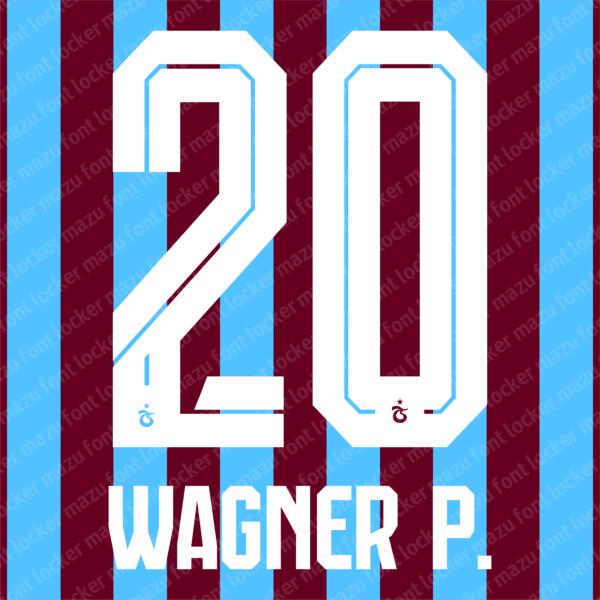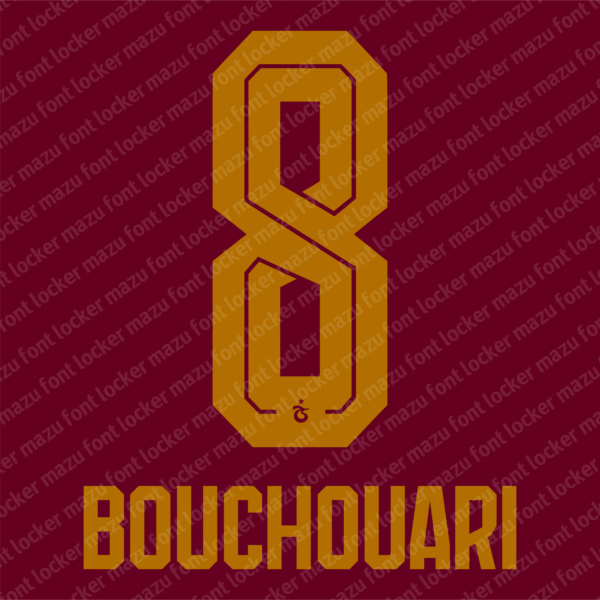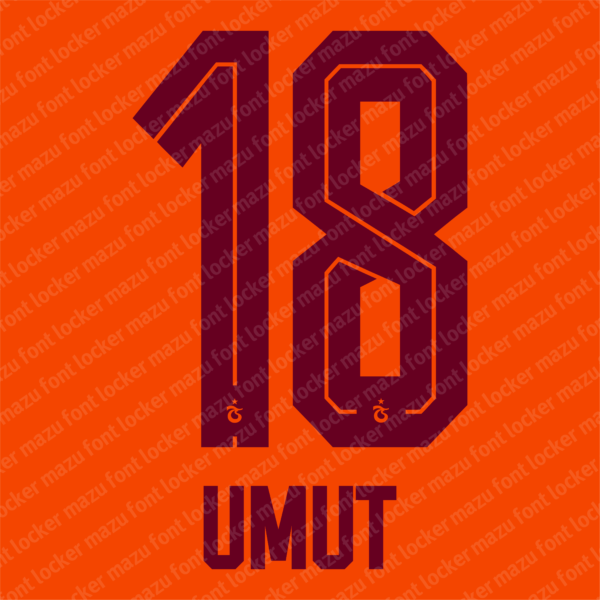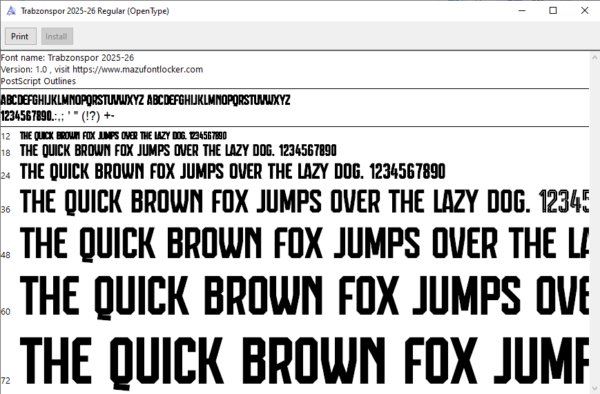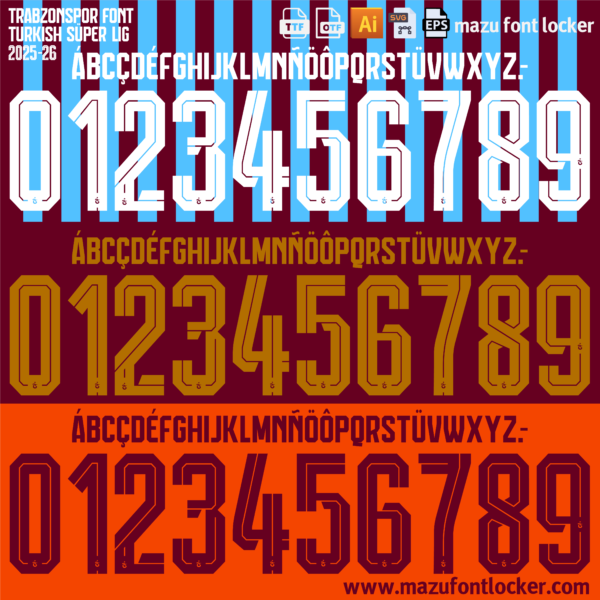
Trabzonspor 2025-26 Font Vector – Fierce Turkish Red Storm Masterpiece
Trabzonspor 2025-26 Font is a high-quality football jersey font vector designed to replicate the official lettering and numbering style used during the 2025-26 season. This Trabzonspor 2025-26 font is perfect for designers, football fans, and creators who want accurate and professional jersey customisation.
Inspired by the official kit of Trabzonspor, this Trabzonspor 2025-26 font delivers a clean and authentic match-day appearance. Every letter and number has been carefully recreated to match the real jersey design, ensuring your projects look realistic and professional.
Trabzonspor 2025-26 Font Vector – Authentic Jersey Lettering
Trabzonspor 2025-26 Font is a high-quality football jersey font vector created to replicate the official lettering and numbering style used during the iconic 2025-26 Season. Perfect for designers, football fans, and jersey customisation projects, this font set delivers an authentic and professional match-day appearance.
Inspired by the original Trabzonspor 2025-26 team kit, every letter and number has been carefully recreated to ensure accurate retro styling for both digital and print projects.
• Authentic 2025-26 Trabzonspor jersey lettering style
The authentic lettering style helps recreate the classic look of the Trabzonspor 2025-26 kit with professional accuracy.
Unlike generic jersey fonts, this set is designed with a strong focus on authenticity and accuracy. Every detail is based on the original match lettering style used during the 2025-26 season, helping designers and collectors create realistic football shirt designs.
This Trabzonspor 2025-26 font vector set is designed for authentic football jersey customization and works perfectly for retro football projects, collector designs, and professional sportswear artwork.